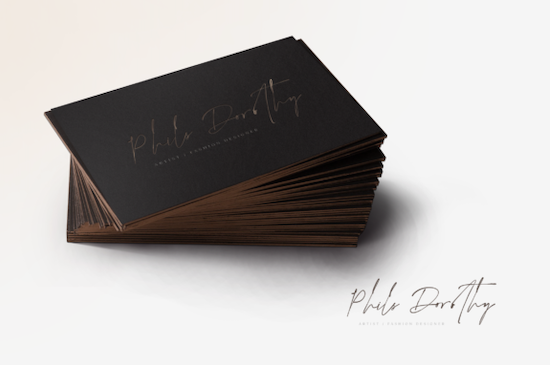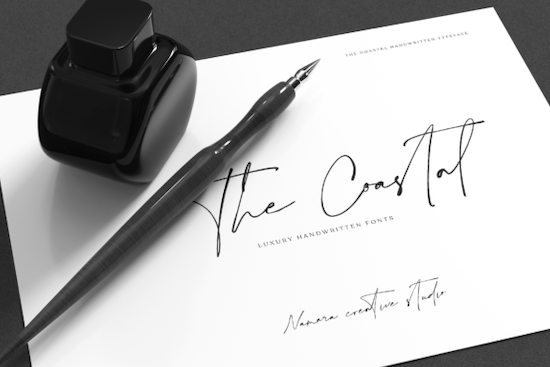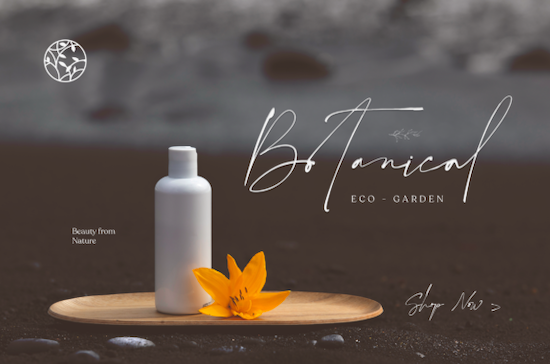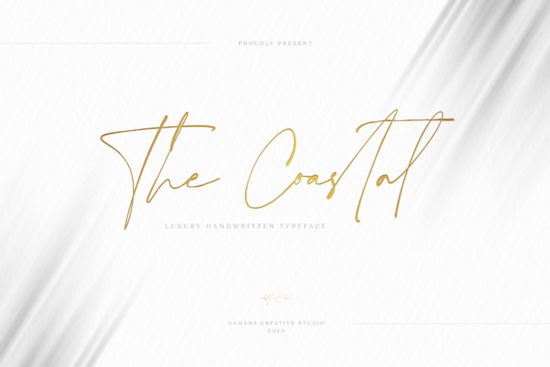
The Coastal is a classy and modern handwritten signature typeface with unique flowing. This font is PUA encoded and so we can access all of the glyphs as well as swashes with an easy step. This handwritten script font consists of lowercase and uppercase letters along with multilingual support, plus punctuations, ligatures, numerals.
The Coastal font is perfect for the book cover, photography watermark, websites, upscale packaging, logos, wedding invitations, typography quotes, magazine, and much more.
The Coastal Handwritten Font
The Coastal Font